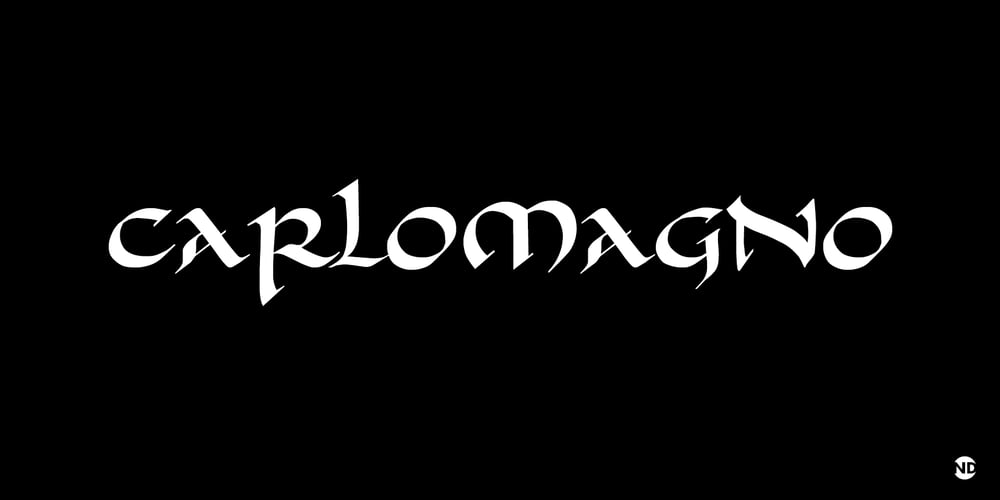
Carlomagno ND
Carlomagno ND font
Carlomagno ND Font Family was designed by Ricardo Rousselot and published by Neufville Digital. Carlomagno ND contains 1 styles and family package options. Carlomango is a typeface designed by Ricardo Rousselot. It maintains the characteristics of the Carolingian script while preserving legibility. It stands out for the realism of its strokes, which look as if they are handwritten, bringing freshness and authenticity to its applications.Carlomagno is a Trademark of BauerTypes SL